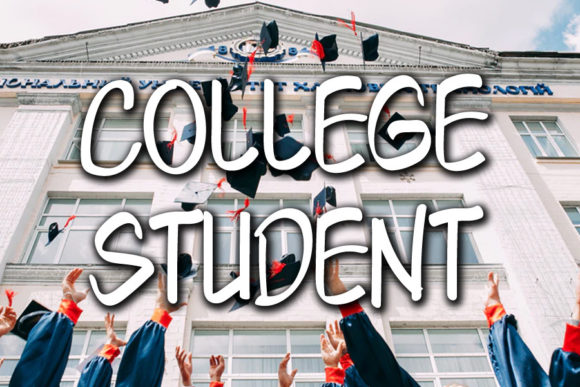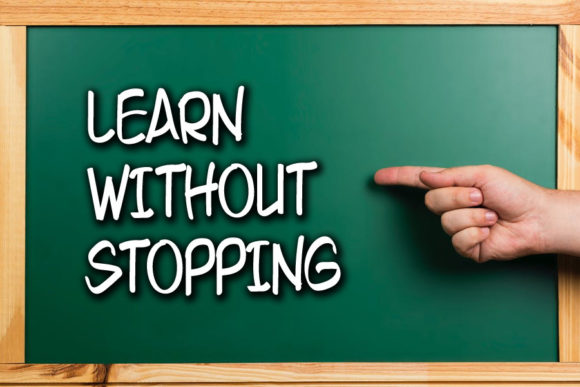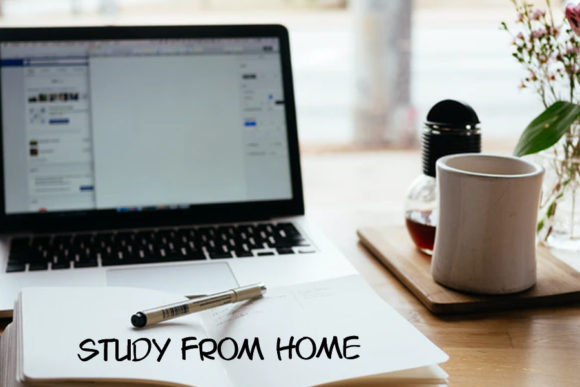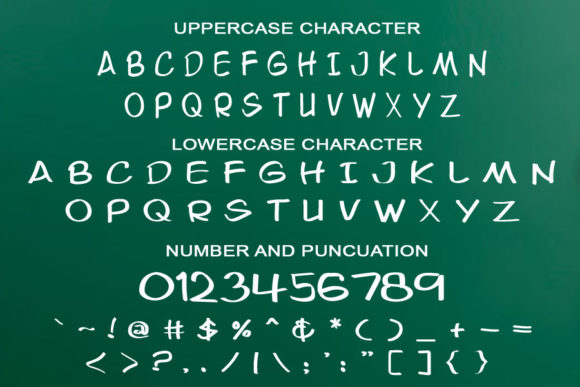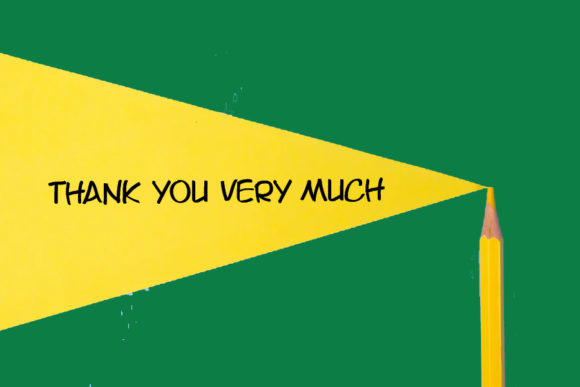
About College Student Font
College Student is a trendy, quirky and cool handwritten font. Whether you’re looking for fonts for Instagram or calligraphy scripts for DIY projects, this font will turn any creative idea into a true piece of art!